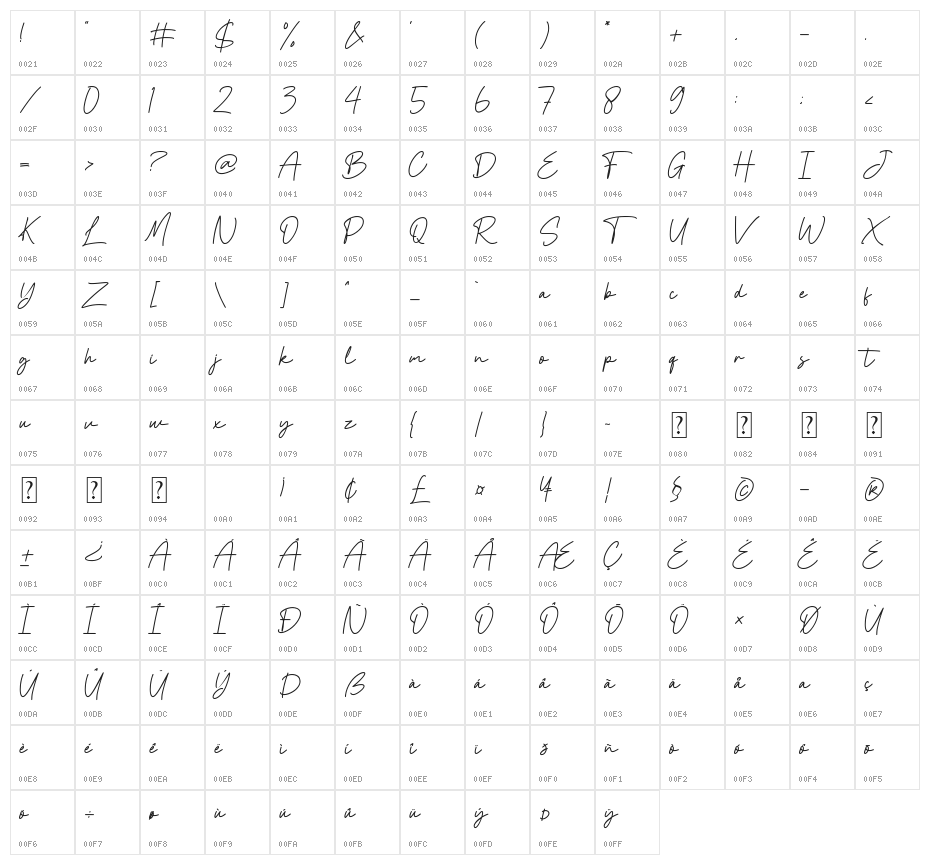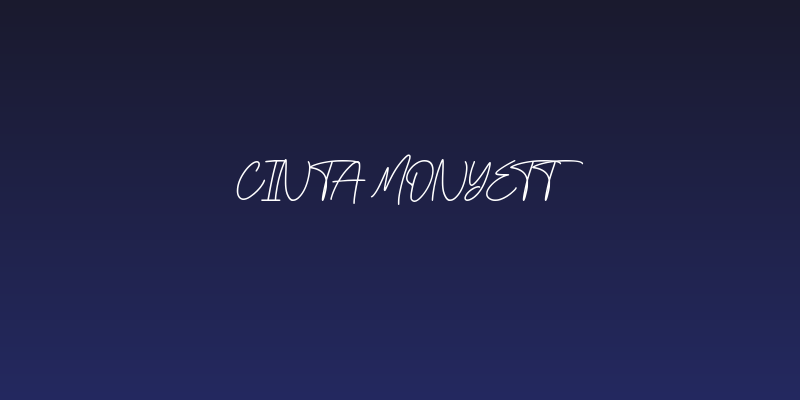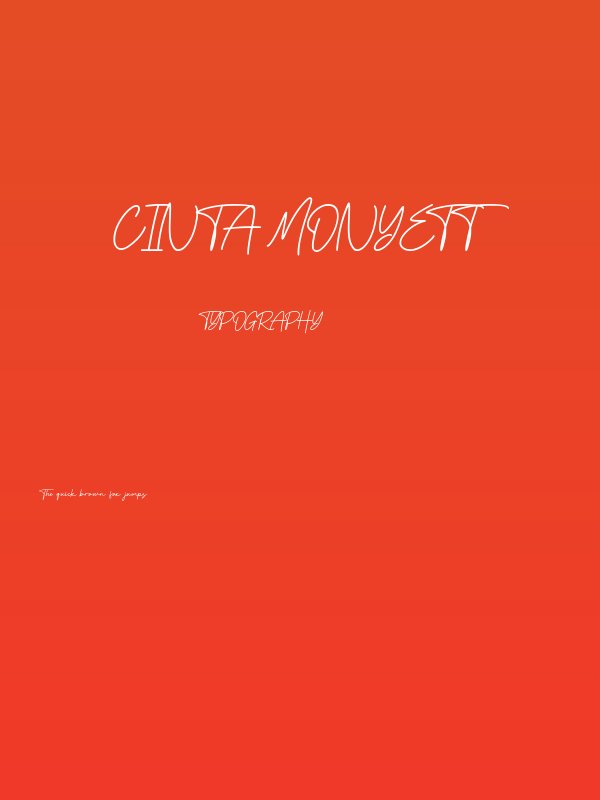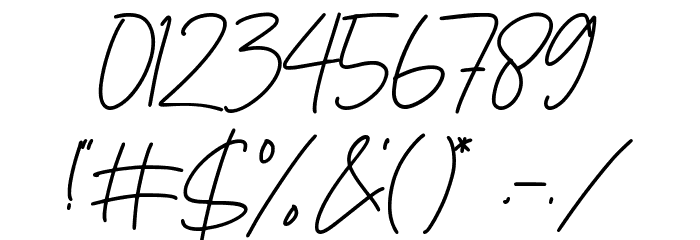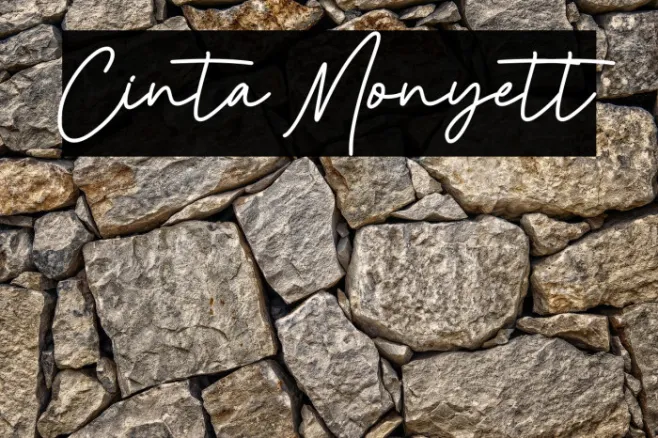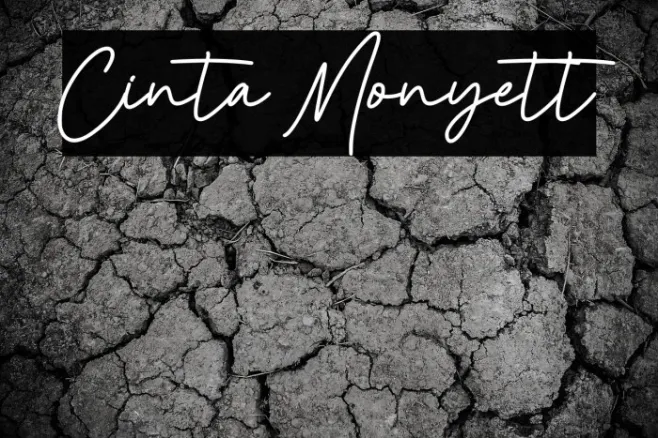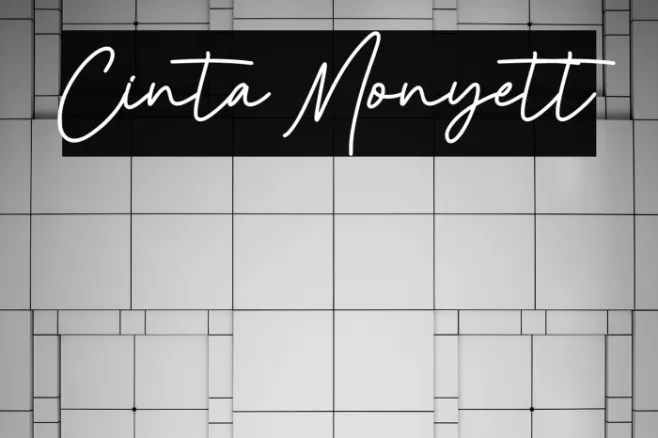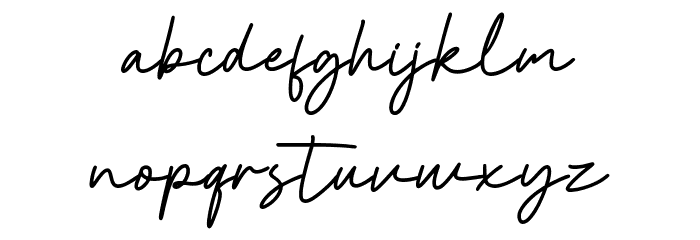
Cinta Monyett Font
Cinta Monyett Description
This font features a flowing, cursive style that mimics natural handwriting. The letters are connected, creating a seamless and elegant appearance. The strokes are smooth and consistent, with a slight slant to the right, enhancing the handwritten feel. The uppercase letters are bold and prominent, while the lowercase letters maintain a delicate and refined look. Numbers and special characters are crafted with the same fluidity, ensuring a cohesive overall design. This font is perfect for adding a personal touch to any project, conveying warmth and authenticity.
| Use Case | Logos, Headlines, Invitations |
| Proposed Projects | Ideal for wedding invitations, personal letters, branding, and social media graphics. |